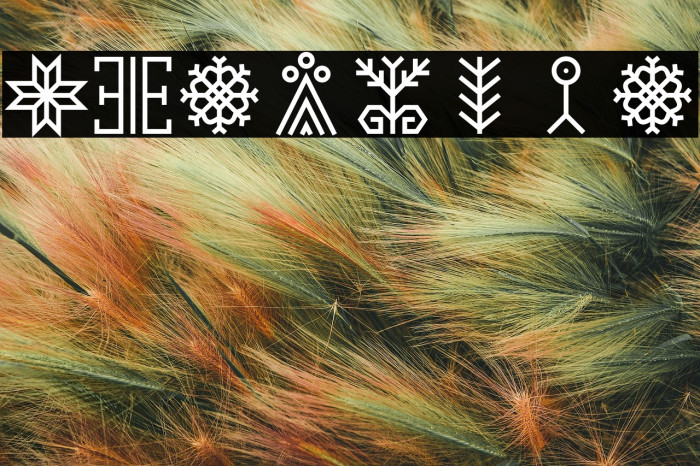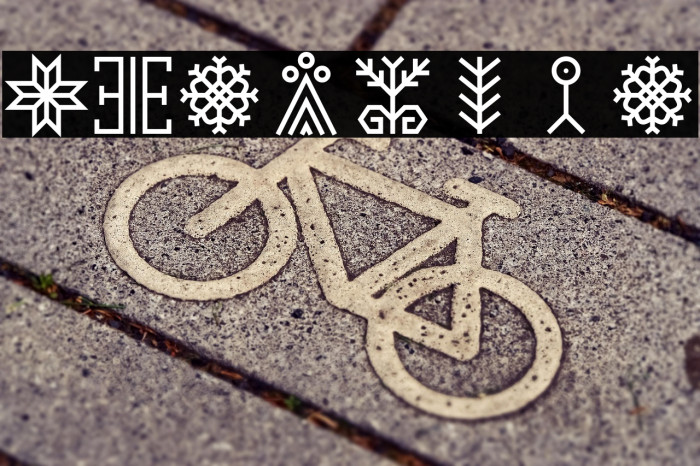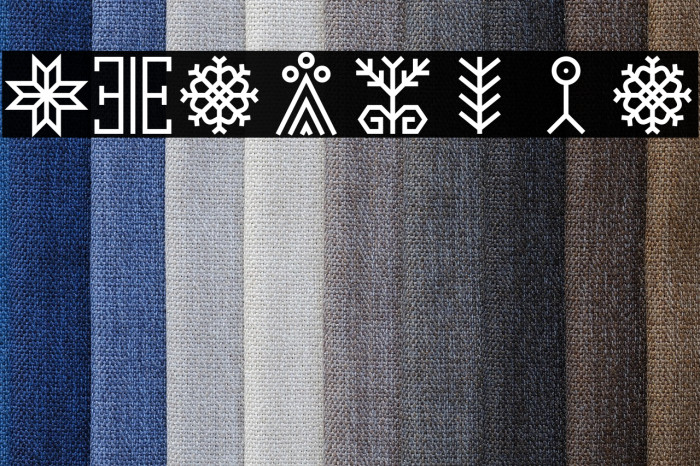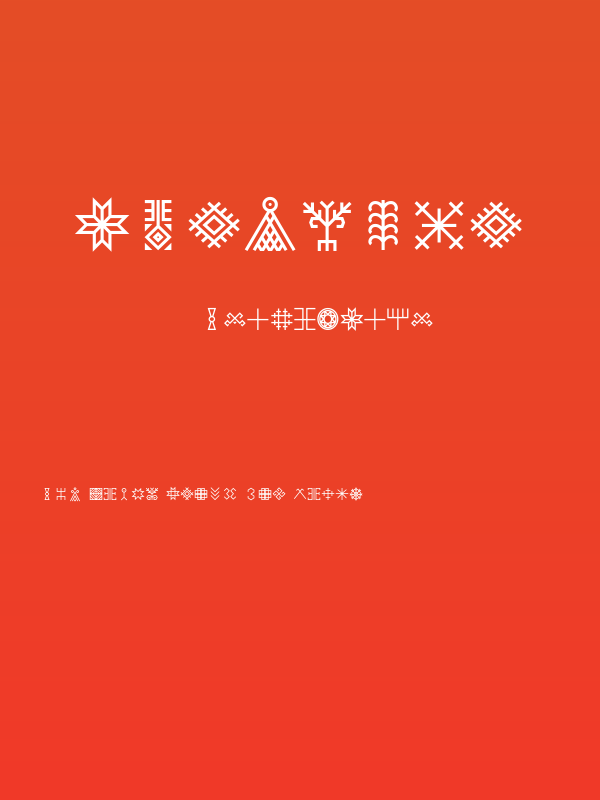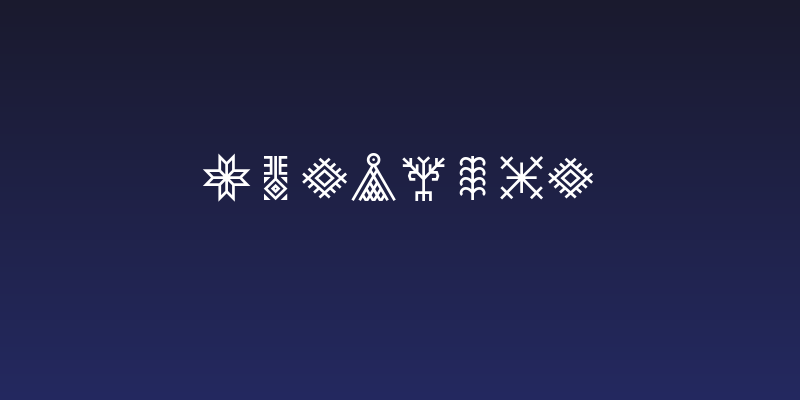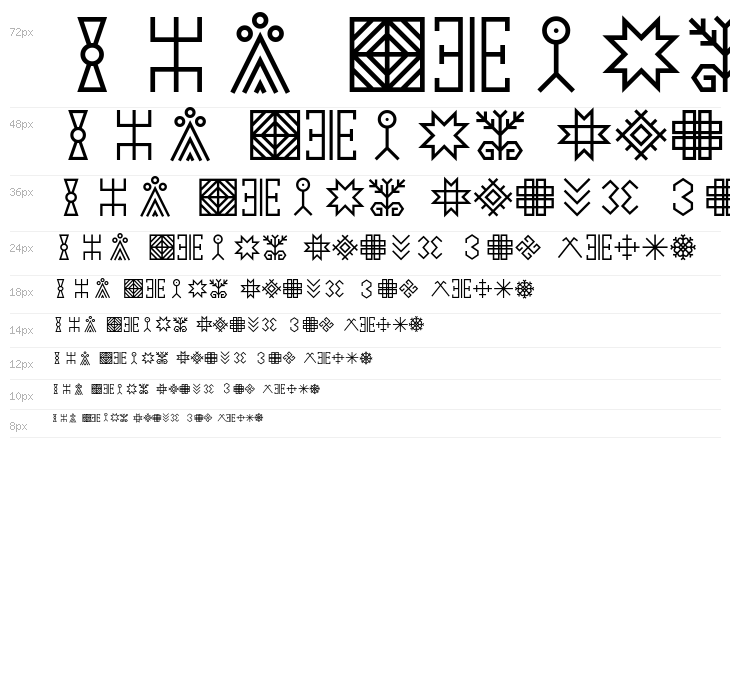
Auseklis Font
Auseklis Description
This collection features a series of intricate, geometric symbols inspired by traditional Latvian motifs. Each character is a unique design, combining elements such as stars, crosses, and abstract shapes. The designs are bold and striking, with a consistent line thickness that gives them a cohesive appearance. The symbols are highly decorative, making them suitable for artistic and cultural projects. The overall style is both modern and traditional, reflecting a blend of historical and contemporary aesthetics. These symbols are not meant for standard text but rather for decorative purposes, adding a unique cultural touch to any project.
| Use Case | Logos, Decorative art, Cultural projects |
| Proposed Projects | Ideal for cultural artwork, decorative designs, and thematic branding. |